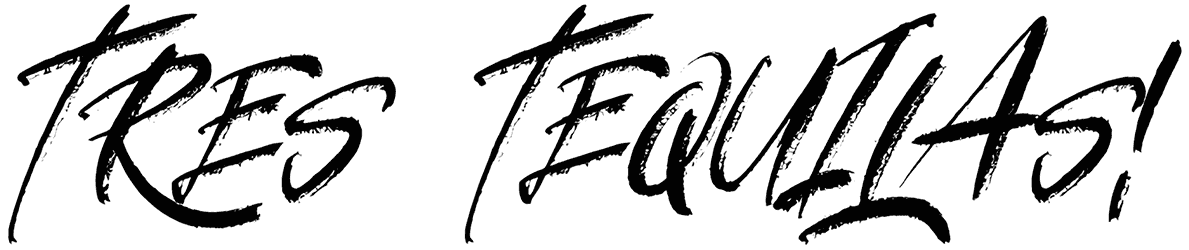
Tres Tequilas! Font
Let us introduce Tres Tequilas! to you as a brush font with a cool hand style. A winsome appearance can refresh the viewers like Tequila! Although this font does not support lowercase, it has two series of caps that diff…
Let us introduce Tres Tequilas! to you as a brush font with a cool hand style. A winsome appearance can refresh the viewers like Tequila! Although this font does not support lowercase, it has two series of caps that differ in design features and allow you to create more diverse combinations. Play around with this chirpy font for flyers, illustrations, apparel, and many more.
Tres Tequilas!